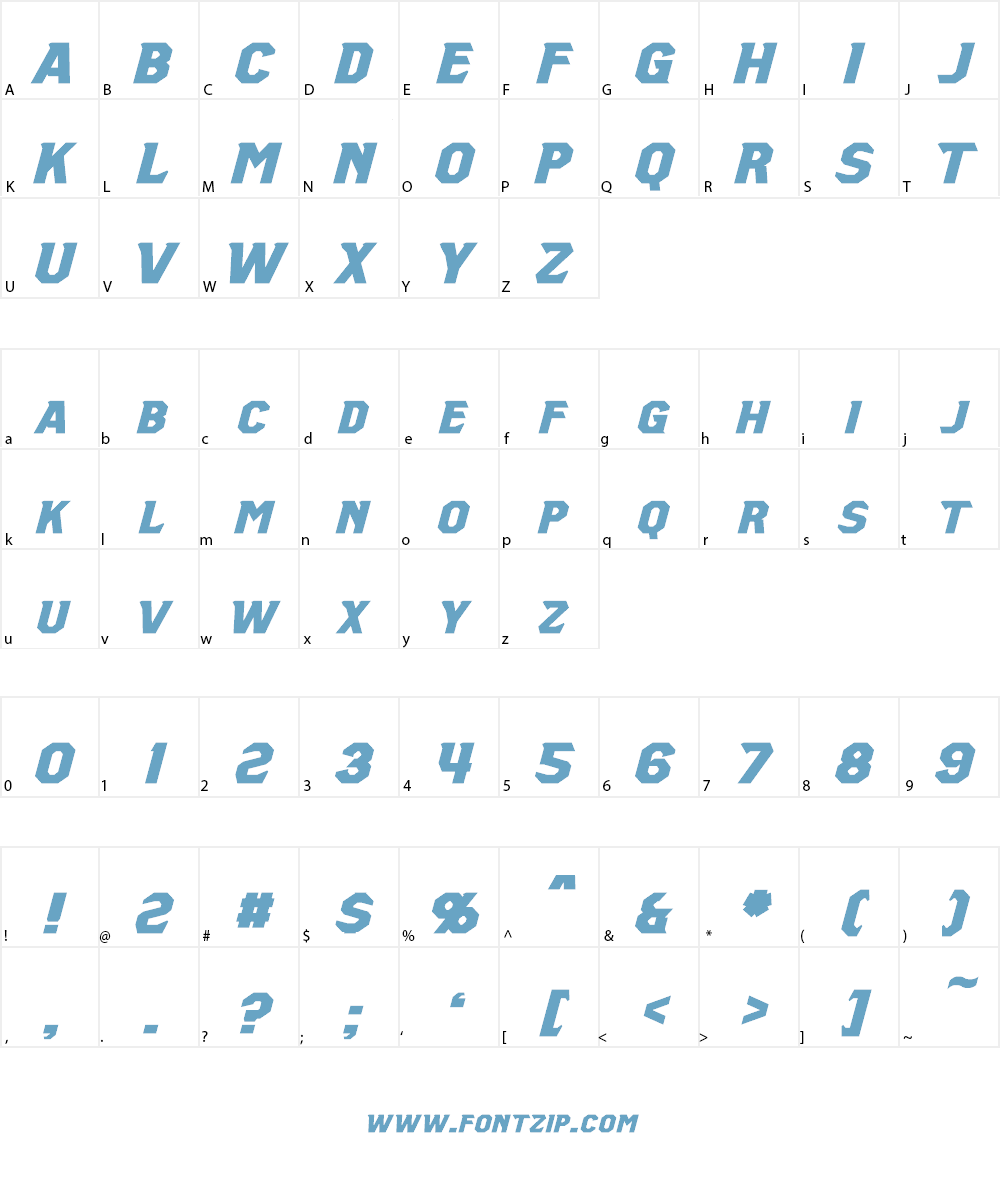
Inquisition is a simple, thick, quasi-gothic font with heavy strokes and sharp angles based on the advertising images from Bioware’s Dragon Age: Inquisition game. This typeface includes full alphabet, “small” caps, extended punctuation, euro. Includes regular, italic, thin, and thin italic styles.